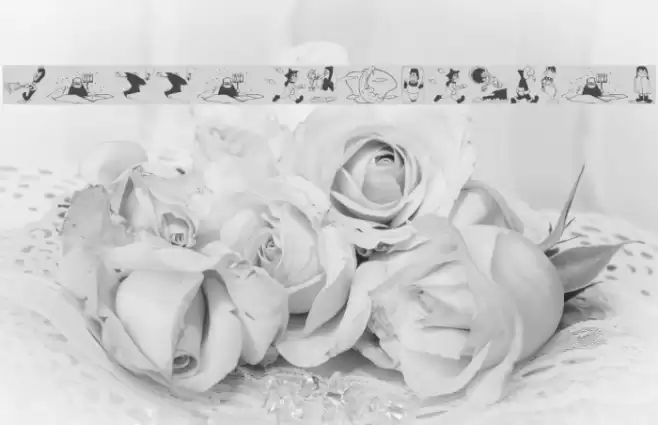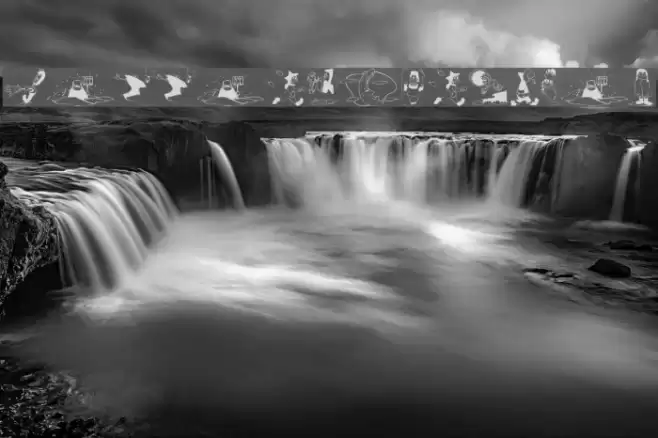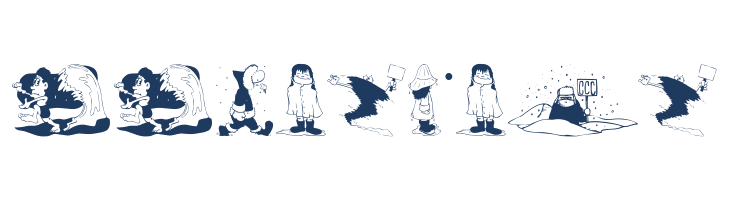
WetterKapriolen Font
WetterKapriolen Description
A decorative display font composed of playful cartoon illustrations depicting various weather scenarios and characters, with each glyph represented by a unique drawing rather than traditional letterforms.
Cartoon-style weather-themed pictogram font from Uncategorized fonts.
- Proposed Projects: Children's books, educational materials, weather-related posters, playful branding, comic strips.
- Overall Style: Playful, Decorative, Cartoon
- Use Case: Illustrative headlines, Thematic graphics, Educational visuals